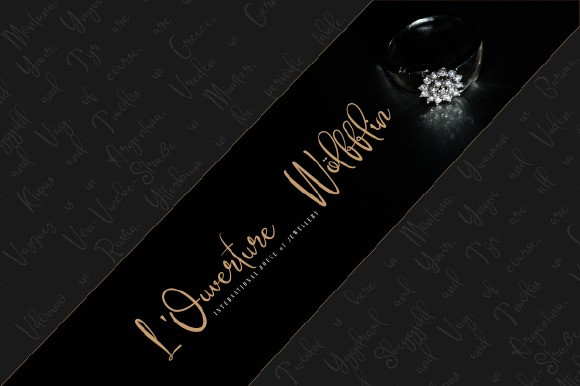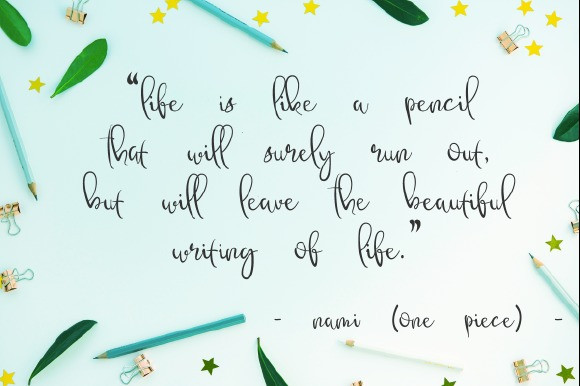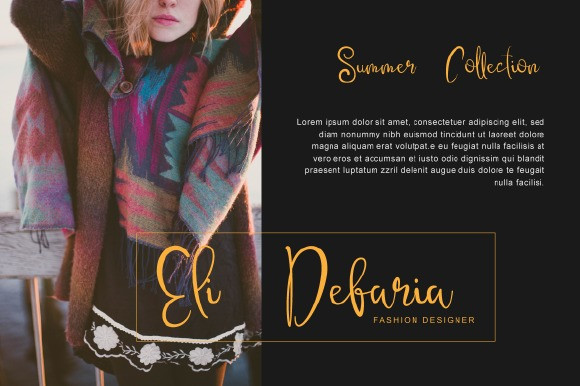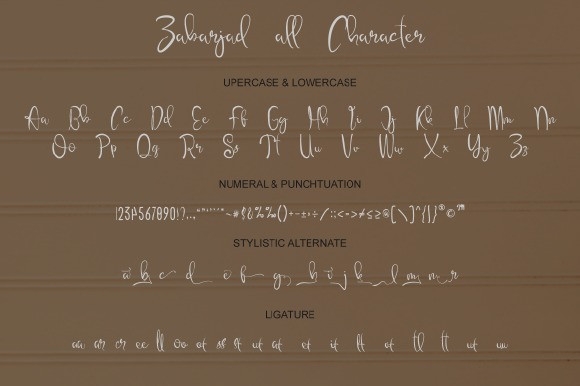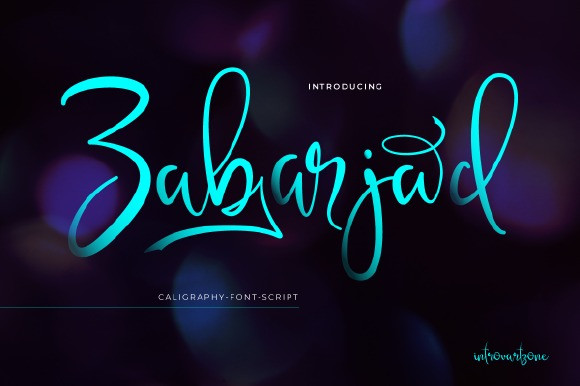
Zabarjad Calligraphy Font
This is script font with a calligraphy style, comes from hand scratches to get natural writing. With the main style of the hand-lettering script, it will be very interesting if it is added with a variety of Alternates and also Stylistic Sets that are very suitable. Introducing Zabarjad Font. It’s designed and shared by IntrovArtZone. It’s a beautiful hand-written font. Fall in love with its luxurious feel & look. Zabarjad Calligraphy is very suitable for use in various media such as; packaging, logos, labels, posters, shirt designs, wisdom quotes, bulletins, typography, and many other media.